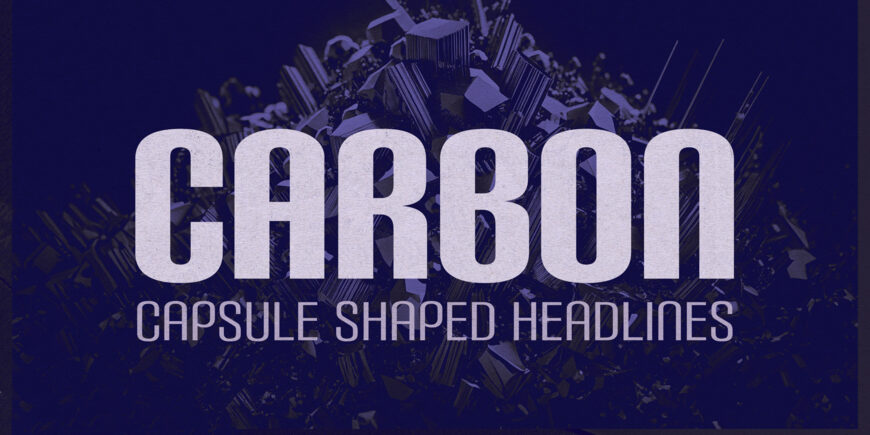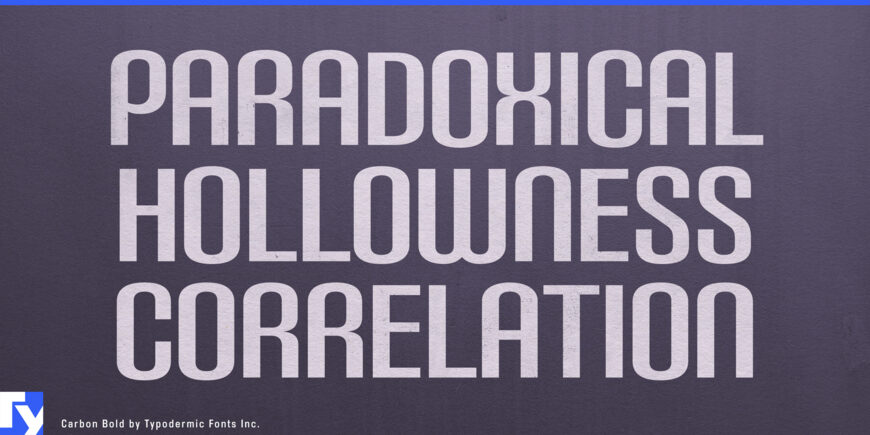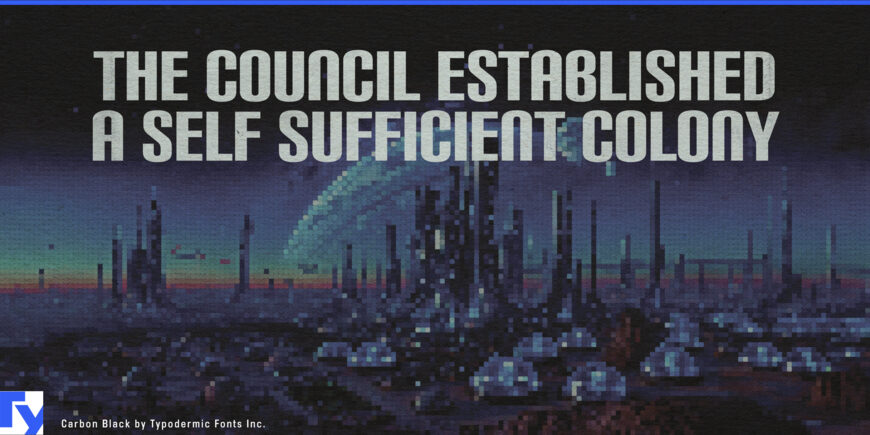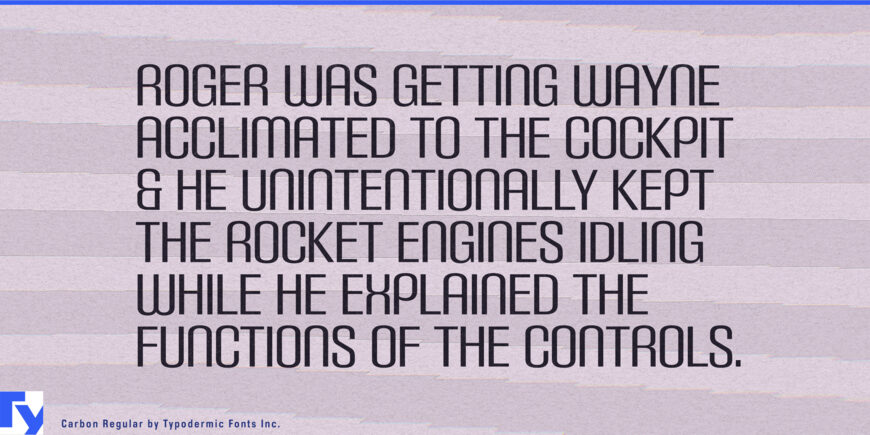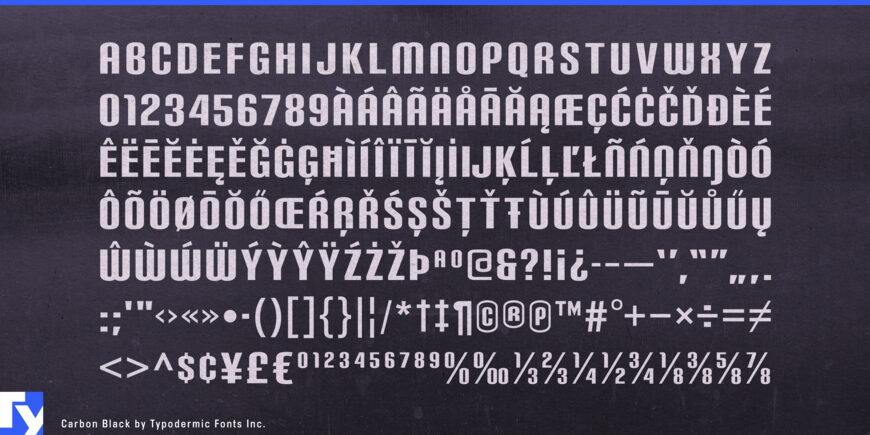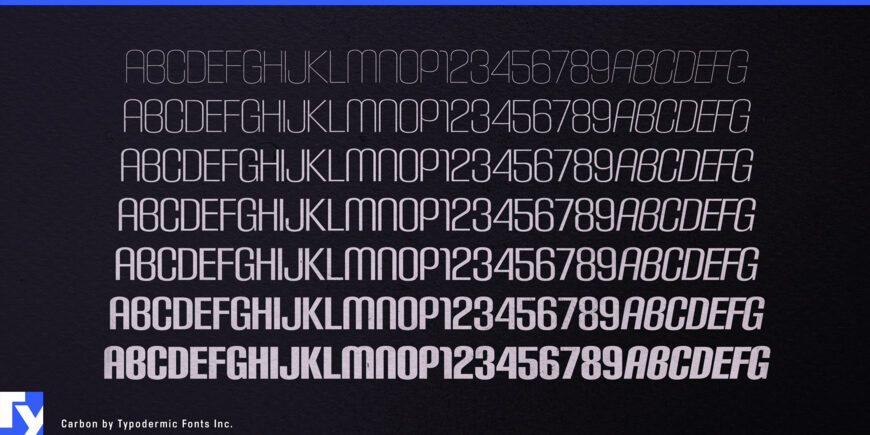
Carbon Font
Carbon looks assembled from a controlled set of geometric parts, giving technical lettering a recognizable structural logic. It is especially effective for automotive electronics, industrial controls, fabrication equipment, robotics, cybersecurity products, interface headings, and machine graphics that need a durable engineered identity.
Designed by: Typodermic Fonts